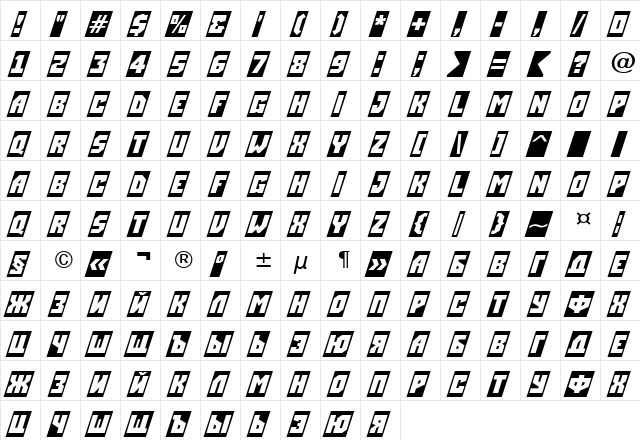
a_SimplerCmDnm Regular
Design Context for a_SimplerCmDnm Typeface
a_SimplerCmDnm is a composed and adaptable typeface that performs quietly and consistently across a wide range of design contexts.